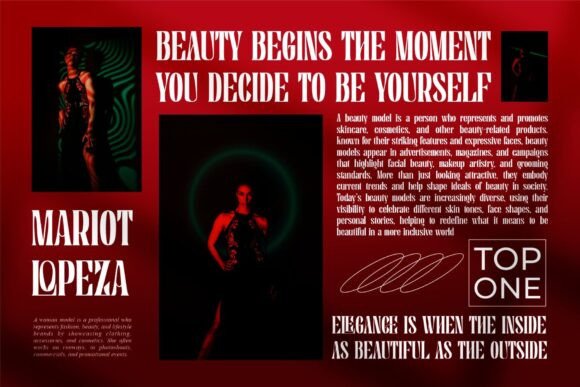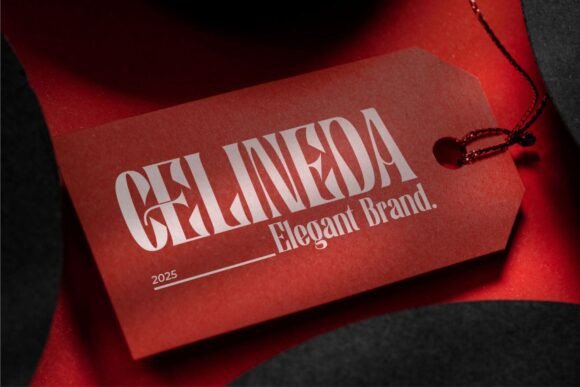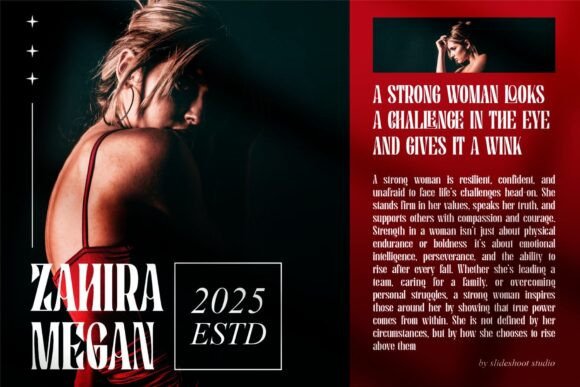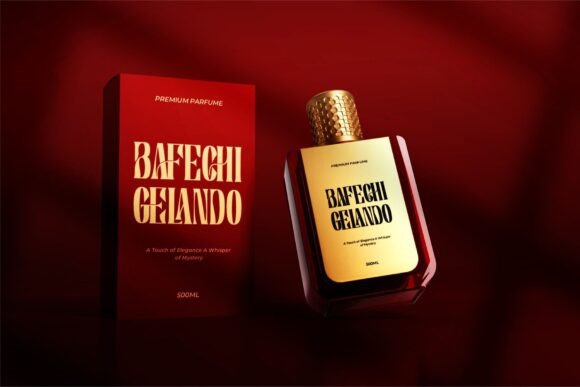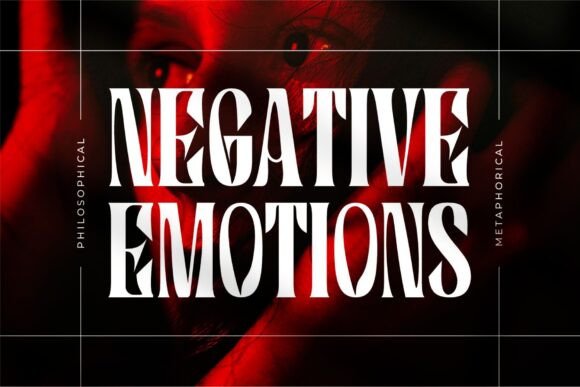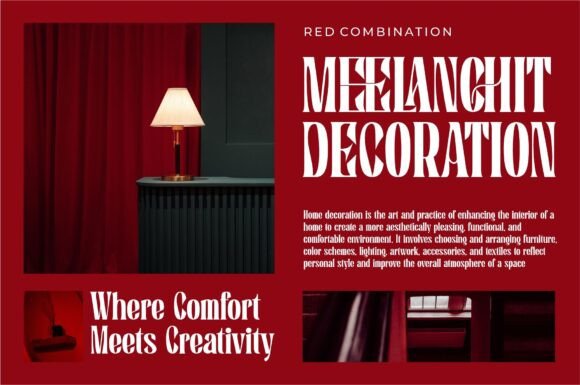
Introducing Ameklon Font: Elevate Your Designs with Bold, Dramatic Serif Elegance
In the world of typography, fonts play a crucial role in conveying the tone and personality of a brand or design. For designers and crafters seeking to make a statement, Ameklon Font is an exceptional choice. This bold, dramatic serif font boasts sculptural elegance and unique ligatures, perfect for creating visually stunning magazine titles, luxury packaging, and statement branding.
The Essence of Ameklon Font
Ameklon Font, also known as Amekion, is a refined serif typeface that exudes high fashion and editorial flair. Its distinctive letterforms are carefully crafted to bring a sense of sophistication and glamour to any design project. Whether you’re working on a luxury brand identity, a high-end magazine cover, or a premium product package, Ameklon Font is sure to make a lasting impression.
Key Features of Ameklon Font
- Bold and Dramatic: Ameklon Font features bold, dramatic letterforms that command attention and evoke a sense of luxury.
- Sculptural Elegance: The font’s refined curves and lines create a sculptural effect, adding an extra layer of sophistication to your designs.
- Unique Ligatures: Ameklon Font includes unique ligatures that allow you to create custom connections between letters, adding an extra touch of elegance to your typography.
- Serif Elegance: The font’s serif details add a touch of classic sophistication, perfect for designs that require a sense of tradition and heritage.
Perfect for High-End Designs
Ameklon Font is specifically designed for high-end designs that require a sense of luxury and sophistication. Its refined letterforms and unique ligatures make it perfect for:
- Magazine Titles: Create stunning magazine covers with Ameklon Font’s bold, dramatic letterforms.
- Luxury Packaging: Elevate your product packaging with Ameklon Font’s sculptural elegance and refined serif details.
- Statement Branding: Make a lasting impression with Ameklon Font’s unique ligatures and bold, dramatic letterforms.
Tips for Using Ameklon Font
To get the most out of Ameklon Font, here are some tips to keep in mind:
- Use it as a Headline Font: Ameklon Font is perfect for headlines and titles, where its bold, dramatic letterforms can shine.
- Experiment with Ligatures: Take advantage of Ameklon Font’s unique ligatures to create custom connections between letters and add an extra touch of elegance to your typography.
- Pair it with Neutral Fonts: Pair Ameklon Font with neutral fonts to create a striking contrast and add visual interest to your designs.
Ameklon Font is a bold, dramatic serif font that brings a sense of high fashion and editorial flair to any design project. Its refined letterforms, unique ligatures, and sculptural elegance make it perfect for creating visually stunning magazine titles, luxury packaging, and statement branding. Whether you’re a designer or crafter, Ameklon Font is an exceptional choice for anyone seeking to elevate their designs and make a lasting impression.